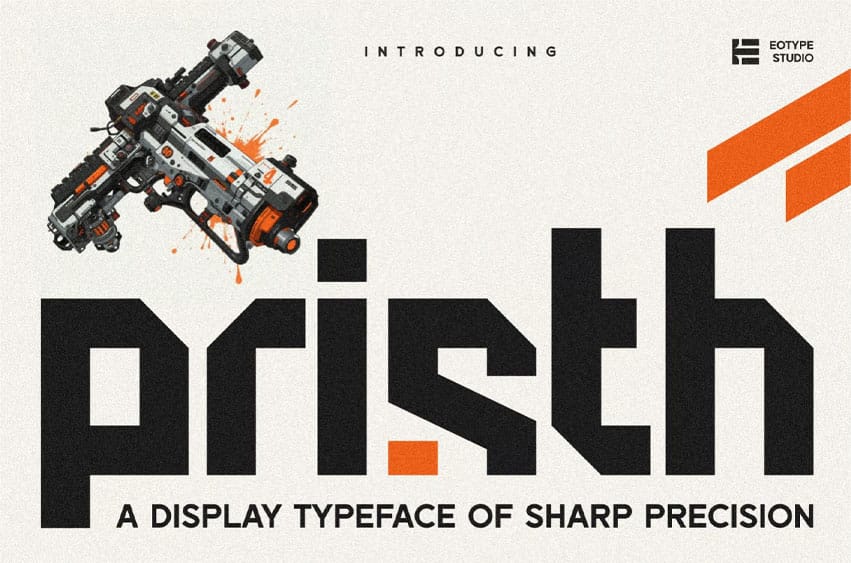
Pristh Font is a bold, angular display typeface that commands attention with its powerful geometric structure and uncompromising presence.
Designed with strength and confidence in mind, Pristh balances brutalist edges with modular rhythm, making it ideal for editorial headlines, sports branding, posters, and experimental typographic layouts.